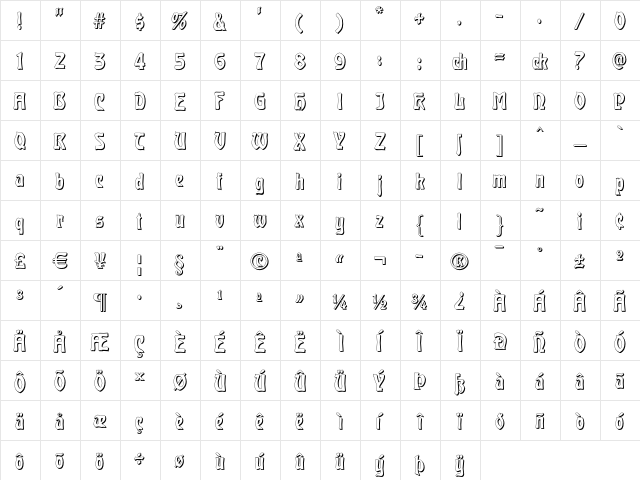
Carmen Shadow Regular Font Preview
Carmen Shadow Regular
Carmen Shadow Regular Font Details
| Designer | Dieter Steffmann |
Design Context for Carmen Shadow Typeface
Carmen Shadow is built around its visual character rather than neutral utility — its distinctive forms are designed to make an impression at display sizes.
Font Pairing: Pair with a clean neutral sans-serif for body copy to let Carmen Shadow's character lead without overwhelming the composition.
Pro Tip: Treat Carmen Shadow as the centrepiece of your typographic hierarchy. One strong heading set in a decorative face can carry an entire layout.